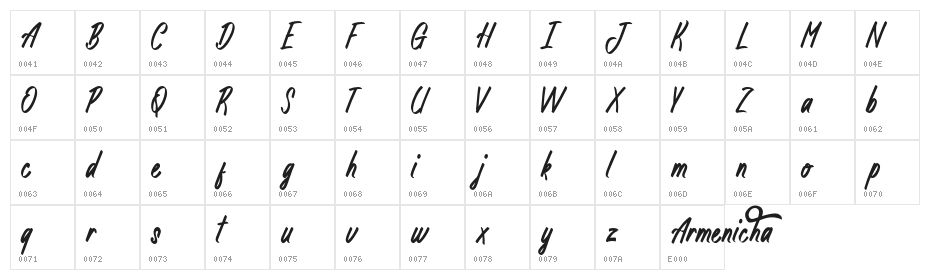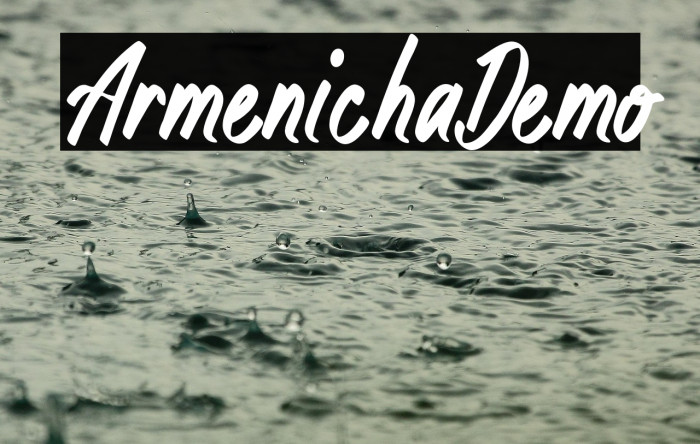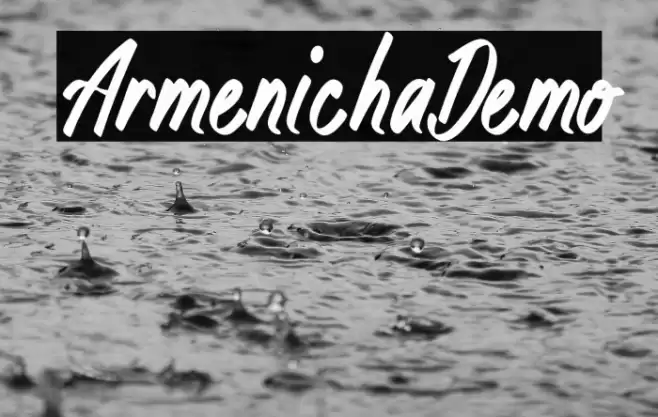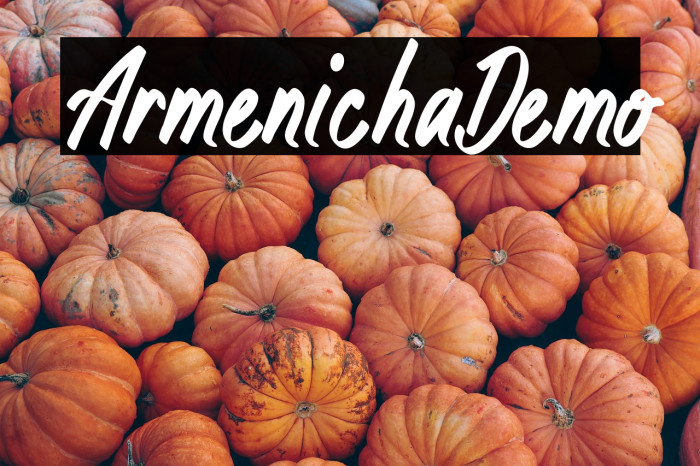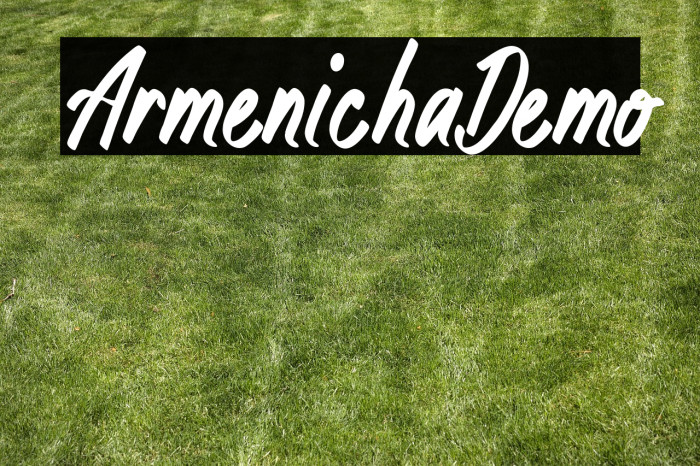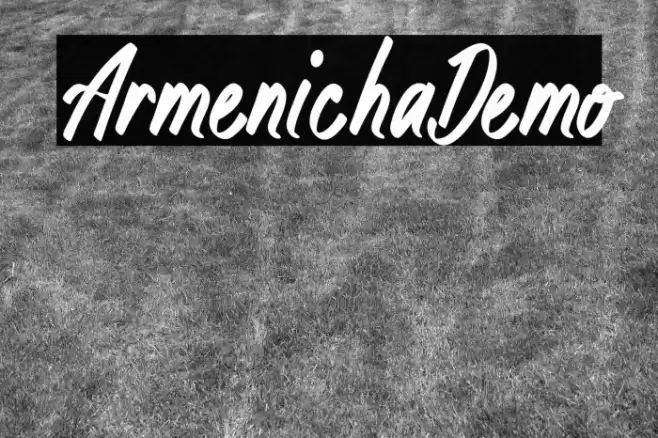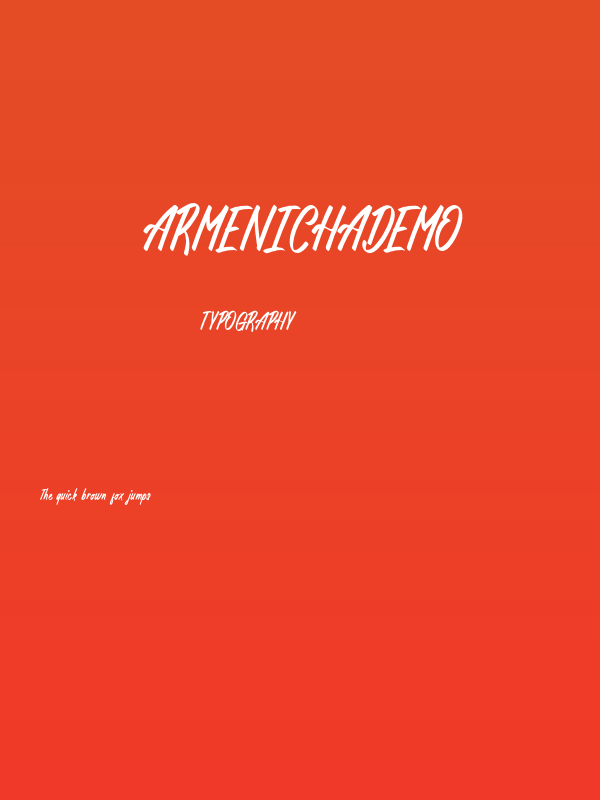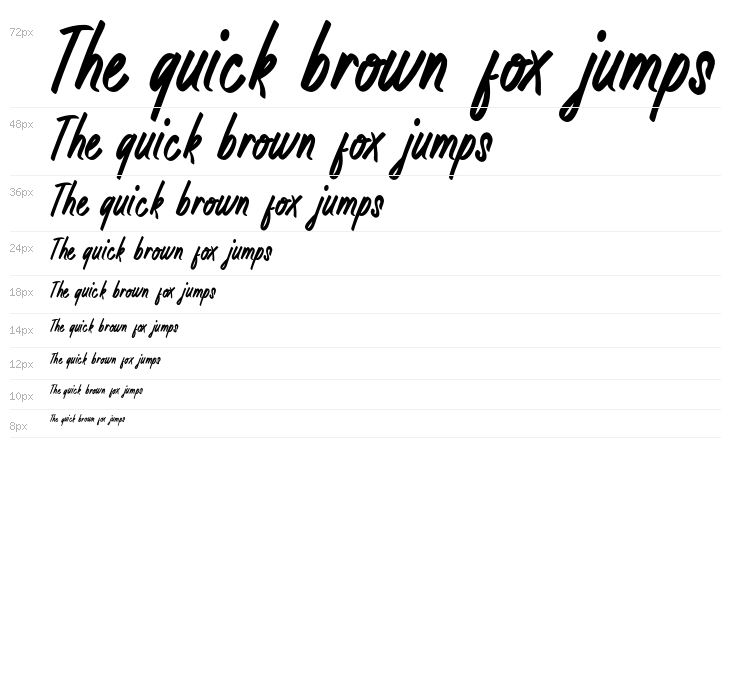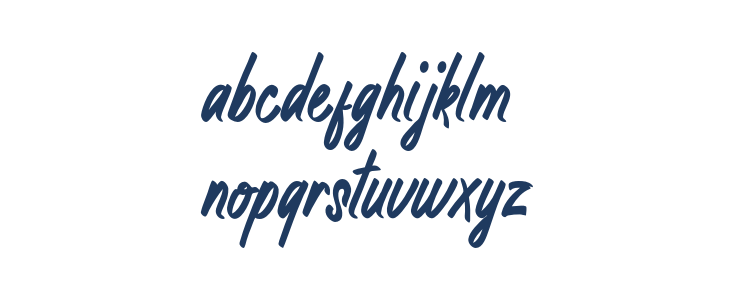
ArmenichaDemo Font
ArmenichaDemo Description
This font features a dynamic and expressive script style, characterized by its fluid and connected strokes. The uppercase letters are bold and slightly slanted, giving a sense of movement and energy. The lowercase letters maintain a consistent flow, with some characters having distinctive loops and curves that add to the font's personality. The overall appearance is both elegant and casual, making it suitable for a variety of creative applications. The font's design is reminiscent of hand-drawn calligraphy, offering a personal touch that can enhance the visual appeal of any project.
| Proposed Projects | Ideal for branding, invitations, greeting cards, and creative posters. |